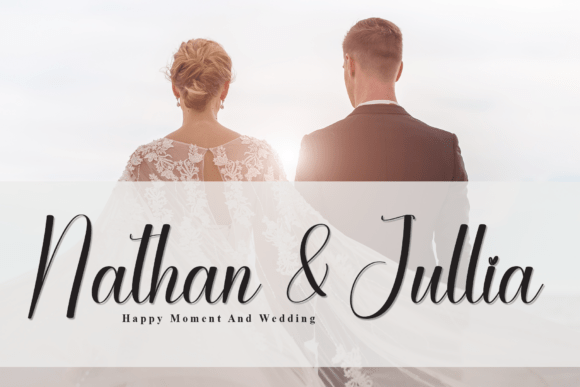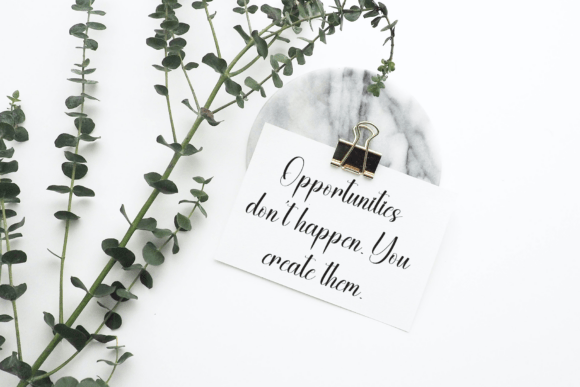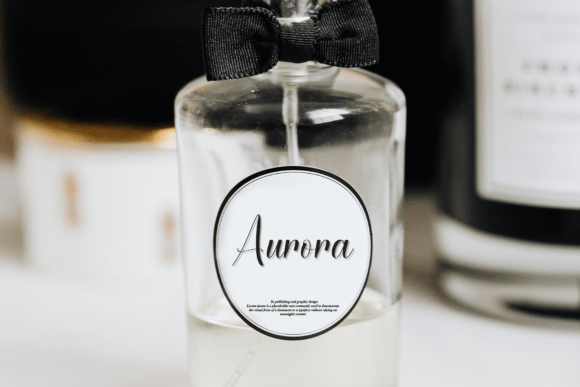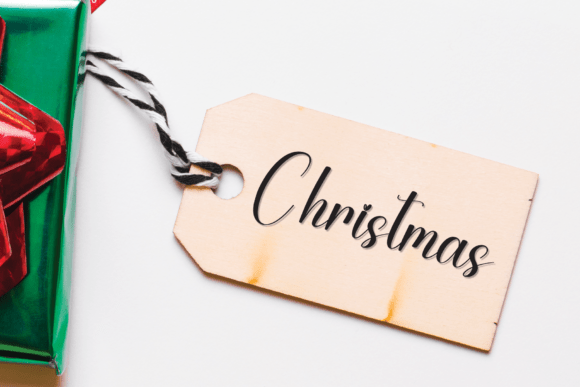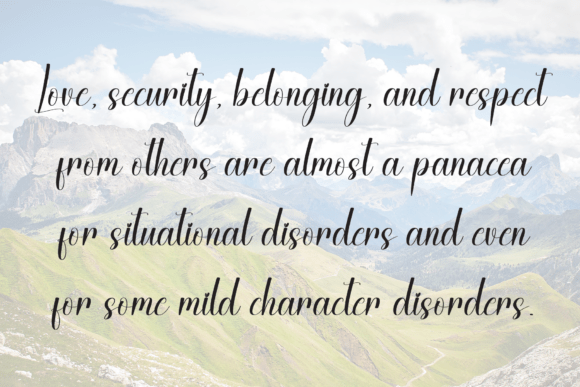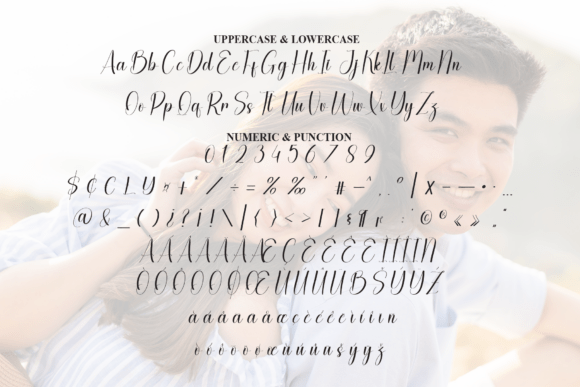
Introduction to Bestie Boyfriend Font Font
Fonts play a crucial role in design, and the Bestie Boyfriend Font font is a typeface that brings both character and versatility to any project. Whether you’re working on a branding project, a website, or a print design, the Bestie Boyfriend Font font offers a unique style that can elevate your work.
Celebrate the sweetness of connection with Bestie Boyfriend, a modern script typeface that perfectly blends youthful energy with sophisticated calligraphic flair.
This expressive font features elegant, elongated ascenders and whimsical hand-drawn heart accents over the βiβ and βj,β capturing the playful essence of a close relationship With its high-contrast strokes and fluid, sweeping swashes, Bestie Boyfriend is the premier choice for teen-targeted branding, independent accessory boutique logos, personalized gift stationery, and high-impact βbest-friendβ social media headers.
Key Features of Bestie Boyfriend Font Font
Why Choose Bestie Boyfriend Font Font?
The Bestie Boyfriend Font font is more than just a typeface β it’s a design tool that helps you communicate your message with style and clarity. Its unique character set and versatile design make it suitable for a wide range of applications, from elegant invitations to bold headlines.
With its carefully crafted letterforms and balanced proportions, the Bestie Boyfriend Font font ensures readability and visual appeal across all mediums.
What makes Bestie Boyfriend Font font special?
The Bestie Boyfriend Font font stands out with its unique design, exceptional readability, and versatility across various design applications.